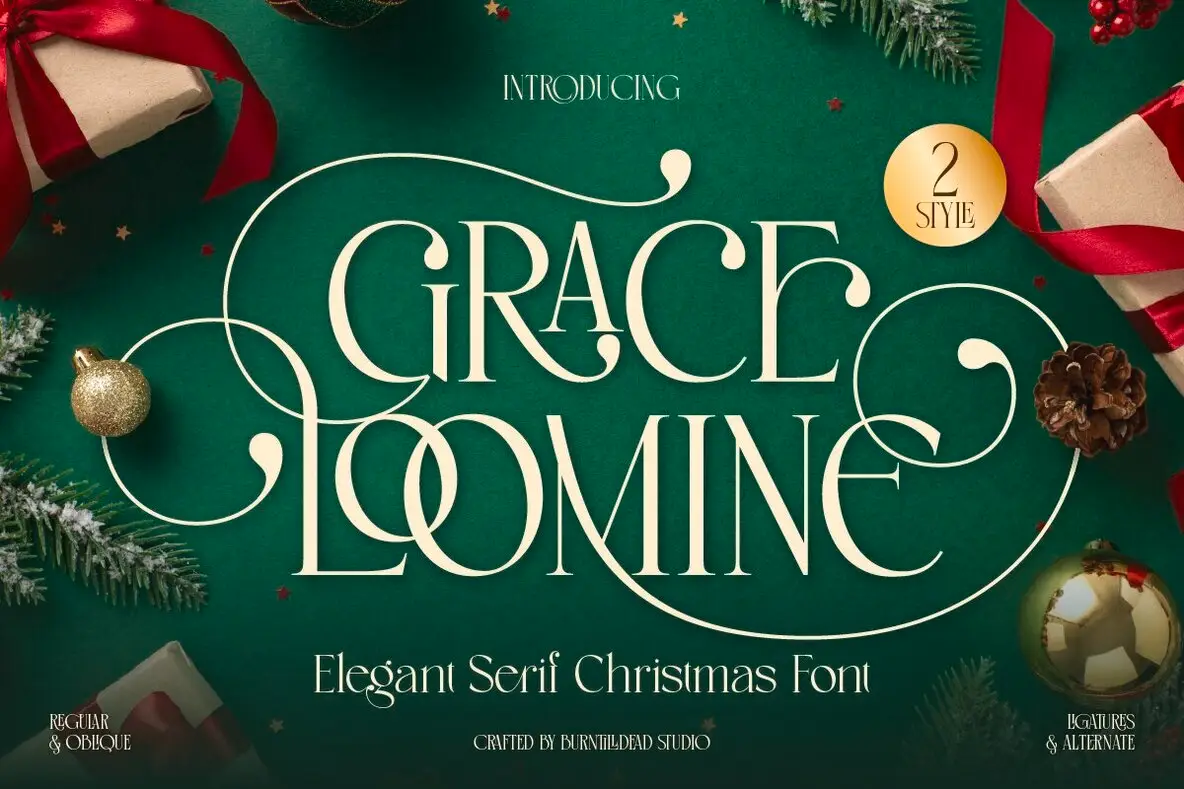
Grace Loomine Font
Grace Loomine Regular
Grace Loomine Oblique
Grace Loomine stands as an exquisite serif font, capturing the timeless essence of Christmas with charm and sophistication. With its graceful curves and luxurious swashes, this typeface infuses every design with a sense of festive elegance. Offered in two refined styles—Regular and Oblique—Grace Loomine evokes warmth and classic charm. Each letter is imbued with holiday spirit, featuring delightful ligatures and stylistic alternates ideal for creating enchanting greetings, invitations, packaging, and editorial layouts. Whether crafting a "Merry Christmas" card, festive signage, or a winter campaign, Grace Loomine transforms typography into a celebration. It marries elegance with festivity, where every stroke reflects joy and each detail gleams with the allure of a frosty night.Grace Loomine: Serif Font Embodying Festive Elegance